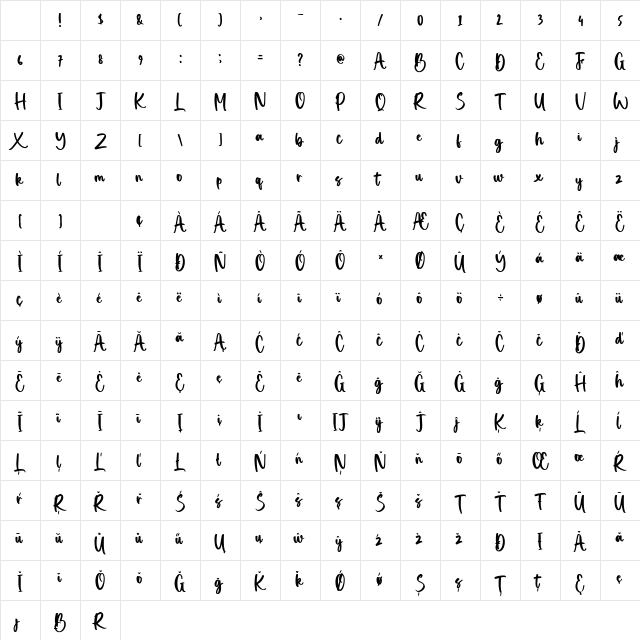
Complete Better Chocolatte Regular glyph index. Displaying only characters natively supported by Better Chocolatte Regular font.
Better Chocolatte is a composed and adaptable typeface that performs quietly and consistently across a wide range of design contexts.